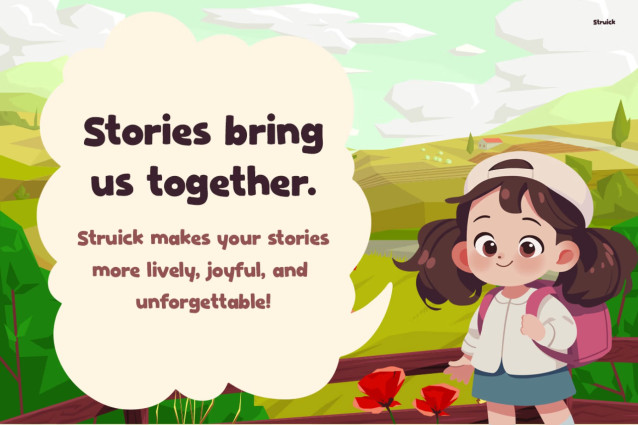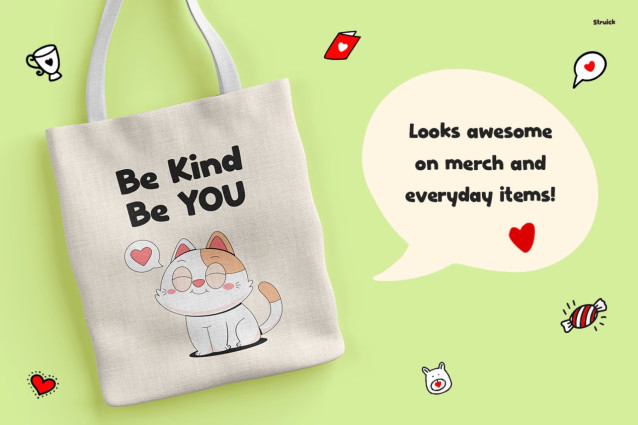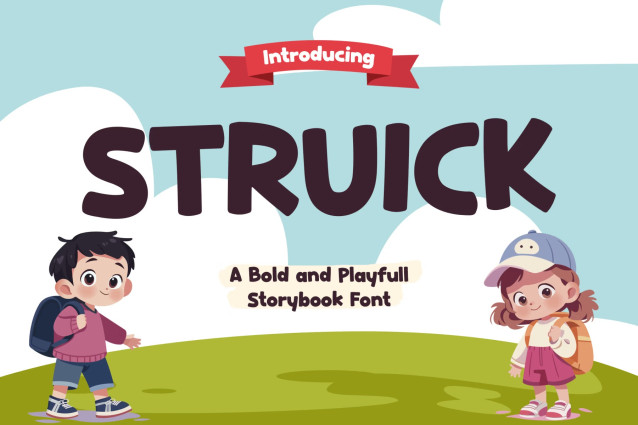
Struick Font
Struick – Playful Kids Font Full of Joy & Imagination
Kids Font Struick bursts with cheerful energy, bringing a fun, bubbly personality into every letter. Its rounded shapes, cute proportions, and lively style instantly create a friendly and approachable look. Moreover, the playful design keeps everything easy to read, while at the same time adding a sense of movement and happiness.